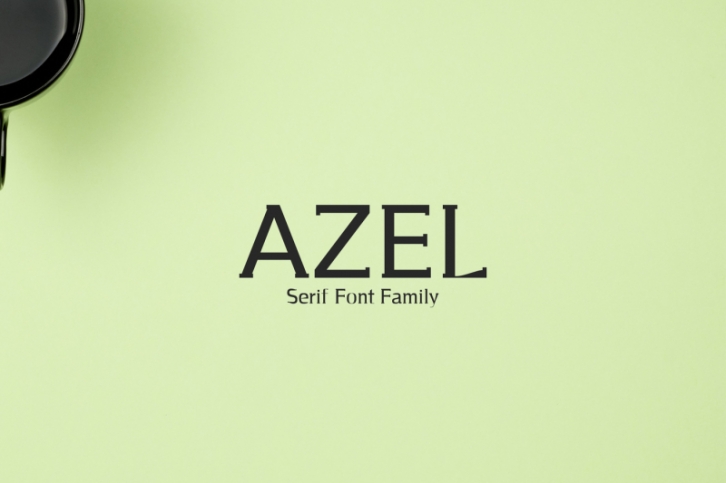
Azel Serif Typeface is minimalist and beautiful serif font family of 4 weights and it features unique and modern serif look and feel. Perfect for gorgeous logos & titles, layouts & content, or large & small scale, It looks gorgeous in all caps with a wide-set spacing if you want to try a classy look, or beautiful on its own in capital and lowercase letters for something completely timeless.
• Regular, Thin, Bold & Extra Bold Weights
Azel Font Features:
• Uppercase Multilingual Letters
• Lowercase Multilingual Letters
• Numbers & Punctuation
• Alternative